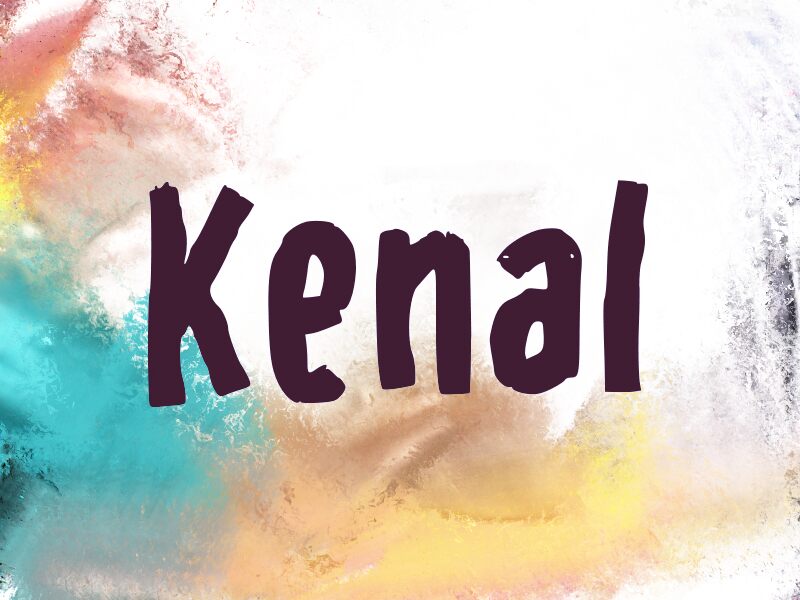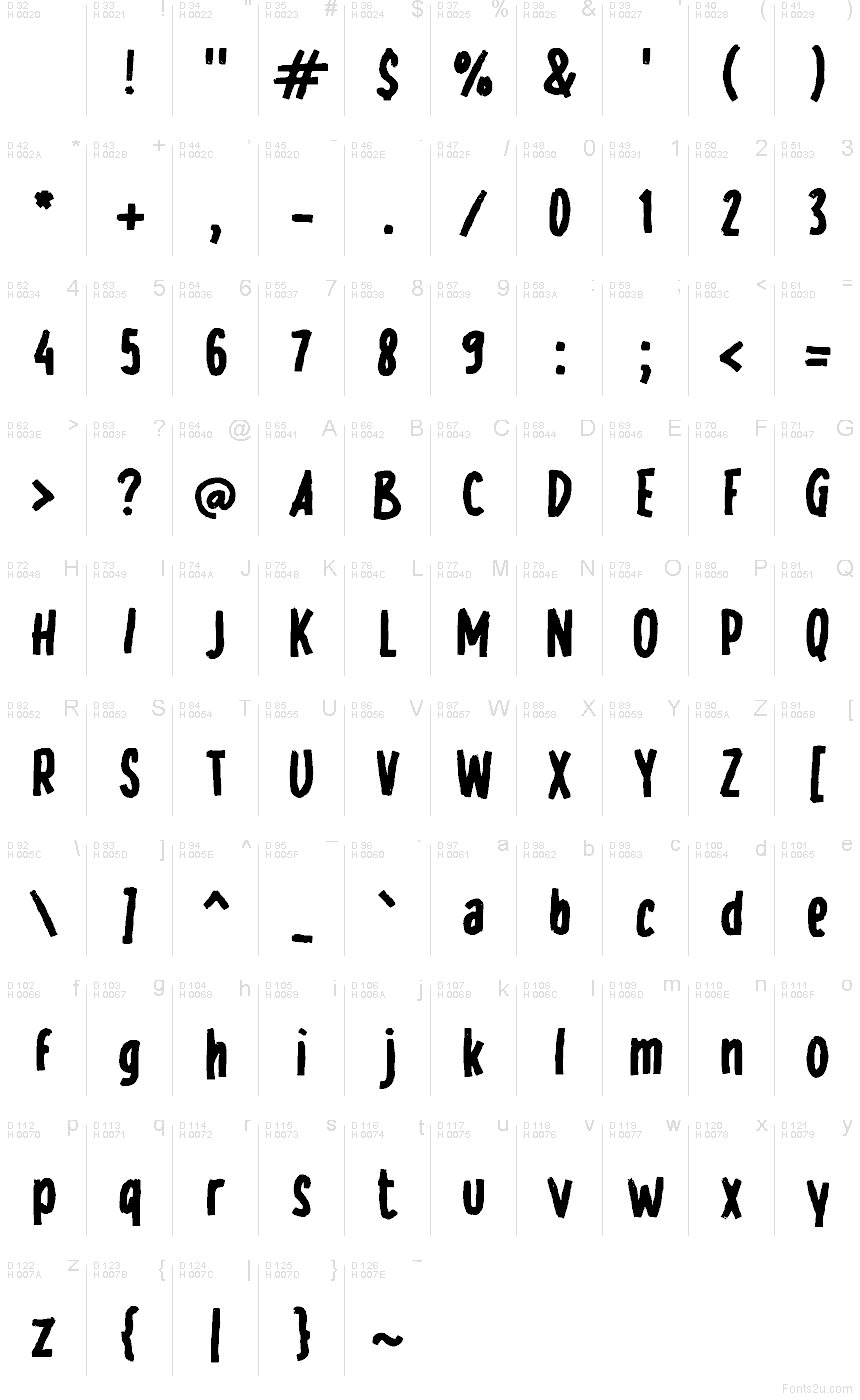
Kenal
Kenal font by wep is a free brush typeface that hits with the bold, inky weight of a hand-painted poster. Its chunky strokes, rough-cut edges, and slightly uneven rhythm feel like they were pulled straight from a thick marker on cardboard, giving headlines a raw, human urgency. The letters pack tightly together, creating solid, high-impact words that read clearly even at a distance.
Using Kenal, you can give zines, gig posters, protest graphics, streetwear branding, food-truck menus, and bold social media graphics a gritty, DIY presence that still stays readable. This free font shines when it’s oversized and loud; pair it with a clean, light sans serif for body copy to let its heavy, brushy texture take center stage.